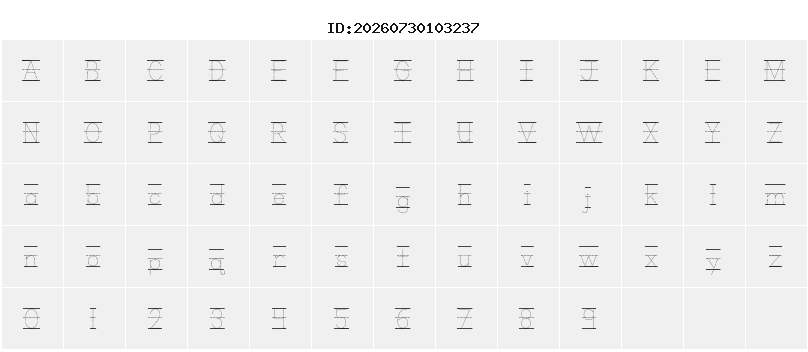
KG Primary Dots Lined NOSPACE Preview
• Designer: Kimberly Geswein
About KG Primary Dots Lined NOSPACE.ttf
KG Primary Dots Lined NOSPACE.ttf is a modern, elegant sans-serif font designed for ultimate readability and visual harmony. Perfect for branding, headlines, web design, and print materials.